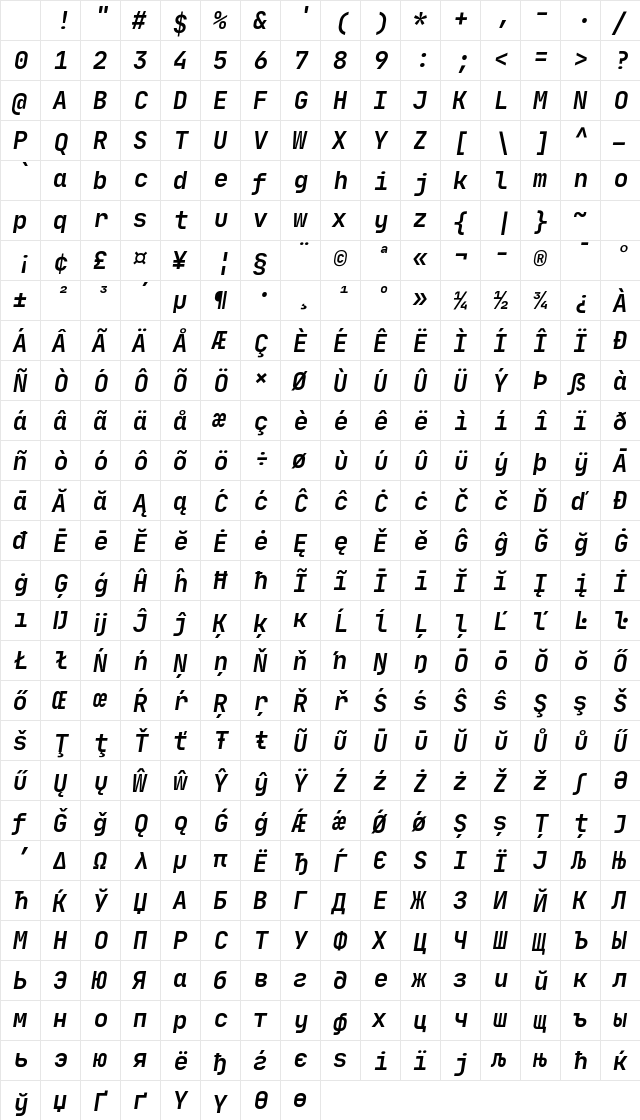
Complete JetBrainsMono Nerd Font Mono Bold Italic glyph index. Displaying only characters natively supported by JetBrainsMono Nerd Font Mono Bold Italic font.
JetBrainsMono Nerd Font Mono uses fixed-width spacing throughout, giving it the structured, systematic character associated with coding environments and technical documentation. The slanted form adds forward momentum and visual energy. Its bold stroke weight gives it real presence on the page.
Pro Tip: Use JetBrainsMono Nerd Font Mono with slightly increased line-height for extended reading - fixed-width spacing can feel dense in longer passages without extra breathing room.